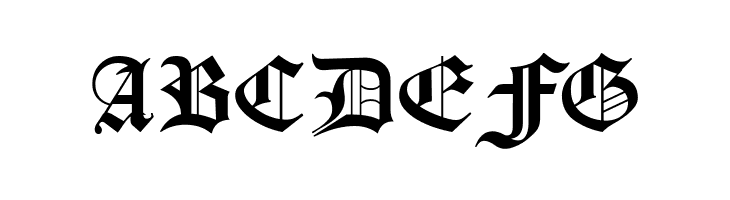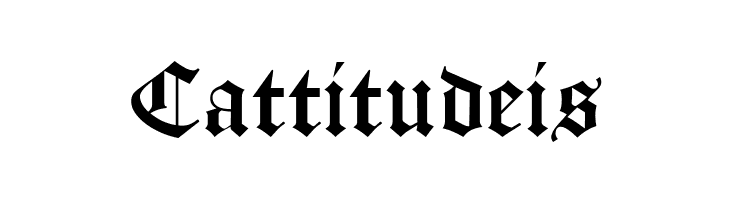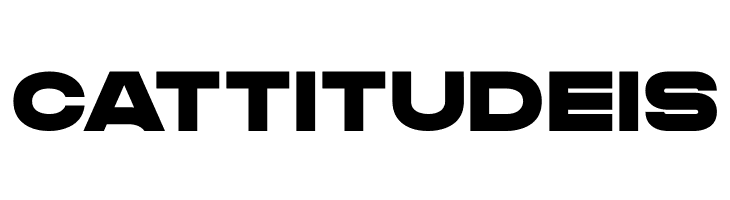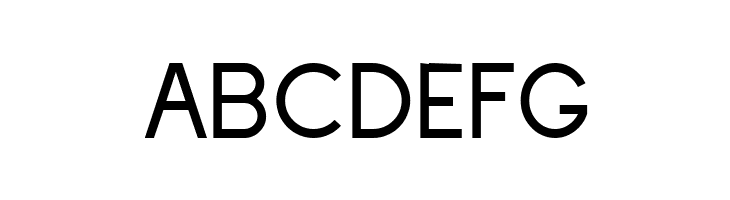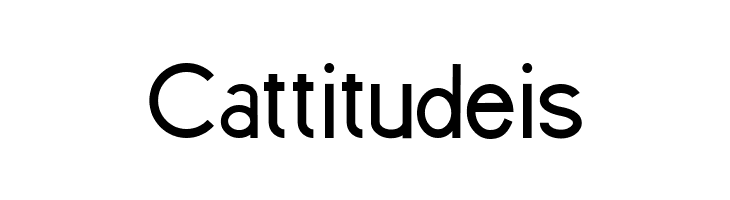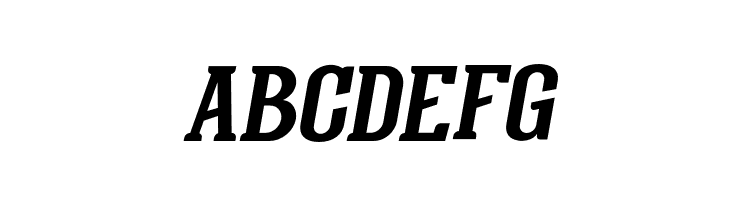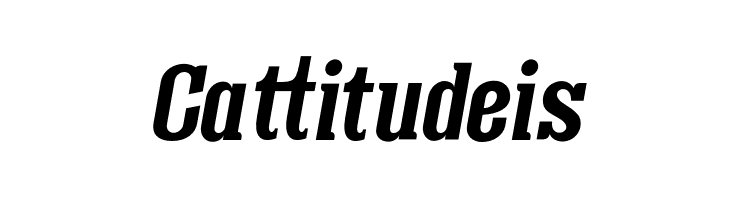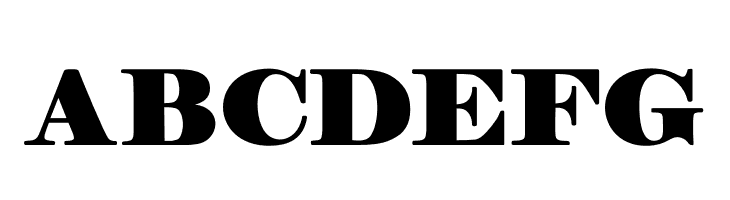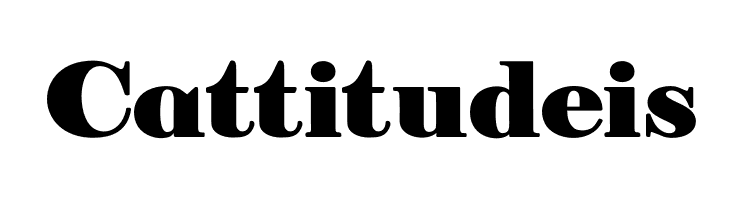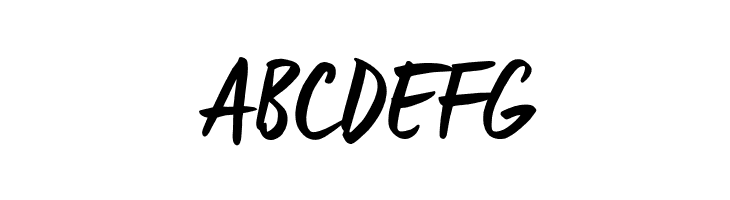
A bold, decorative font with a vintage flair and high contrast strokes.
A bold, handwritten font with an ancient, script-like appearance.
A pixelated, monospaced font with a retro digital aesthetic.
A bold serif typeface with classic elegance and medium contrast, ideal for formal use.
A bold, italic serif font with elegant and dynamic styling.
An elegant serif font with a classic italic style and moderate stroke contrast.
A classic serif font with medium weight, offering readability and a timeless appeal.
A medium weight, italic serif font with classic elegance and refined style.
A classic serif font with a modern touch, offering elegance and versatility.
A semi-bold serif font with a classic yet modern style, offering excellent readability.
A classic serif font with semi-bold weight and italic style, offering elegance and readability.
A dot matrix style font with a retro digital display appearance.
A bold, dramatic serif font with thick strokes and pronounced serifs.
A bold, high-contrast serif font with a classic and authoritative style.
A playful, handwritten-style font with a modern and elegant touch.
A casual handwritten font with a lively and organic appearance.
A bold, decorative font with a vintage, hand-drawn aesthetic.
A modern, clean sans-serif font with a minimalist design.
A smooth, handwritten font with a casual and elegant style.
A lively, handwritten font with smooth, flowing strokes and a dynamic style.
A flowing, cursive font with elegant loops and swashes, perfect for artistic projects.
A dynamic and expressive handwritten font with fluid, cursive strokes.
A dynamic, cursive script font with fluid strokes and artistic flair.
A bold, italic font with a dynamic and energetic style.
A bold, textured font with a hand-drawn, vintage look.
A bold, textured font with a hand-drawn, rustic appearance.
A classic blackletter font with intricate, ornate letterforms and sharp, angular lines.
A classic blackletter font with ornate, gothic letterforms and high contrast.
A bold, expressive handwritten script with dynamic strokes.
A bold, expressive handwritten font with dynamic strokes.